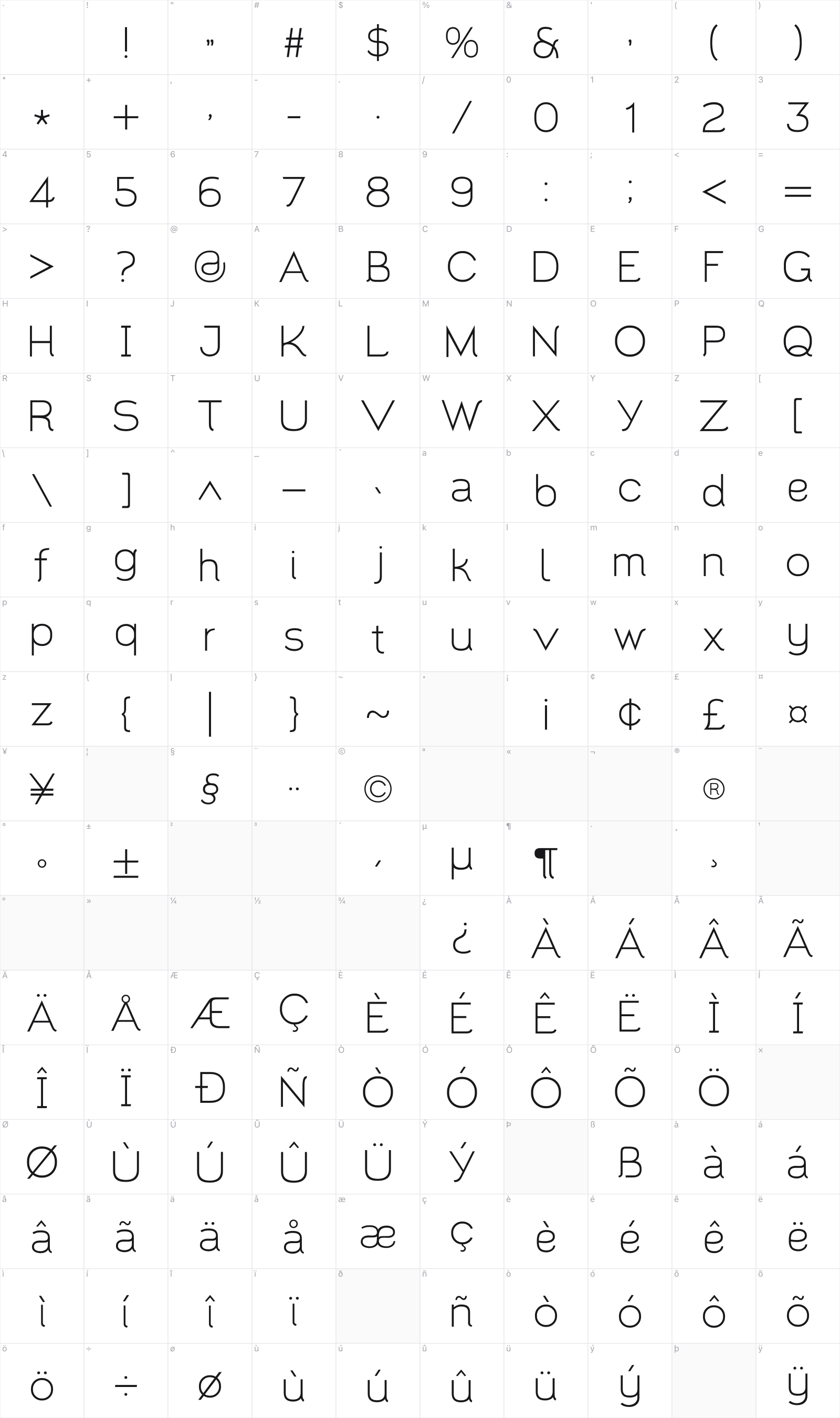
Santor
by Tra Nguyen
Santor is a thin, geometric sans-serif from Tra Nguyen with delicate strokes and a quietly elegant presence. The letterforms are minimal and cleanly constructed, favoring open space and precision over ornamentation. It reads best at headline sizes where its light weight can feel intentional rather than fragile, making it a strong pick for modern branding, editorial headers, and design work that values restraint.